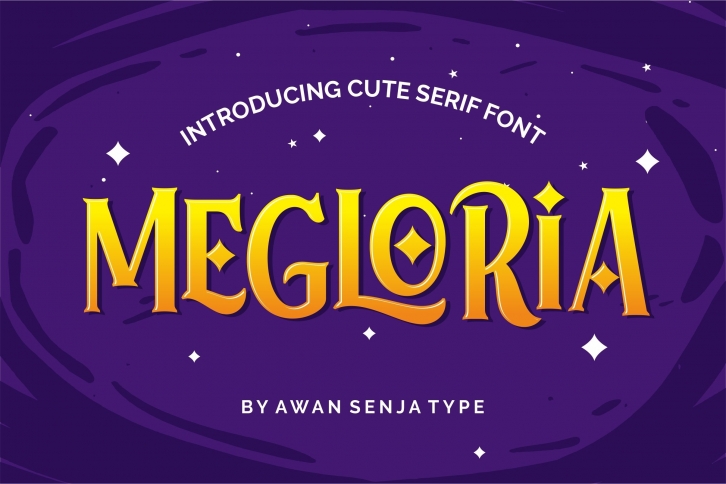
Megloria is a beautiful font that was designed by Awan Senja. It's a great choice for designers and creatives who need such a font. It was released on October 2, 2020 and the file size is 6.35 MB. Megloria may give a more youthful, expressive and casual look to your project. It is a very beautiful, refined, elegant, and high-quality font.